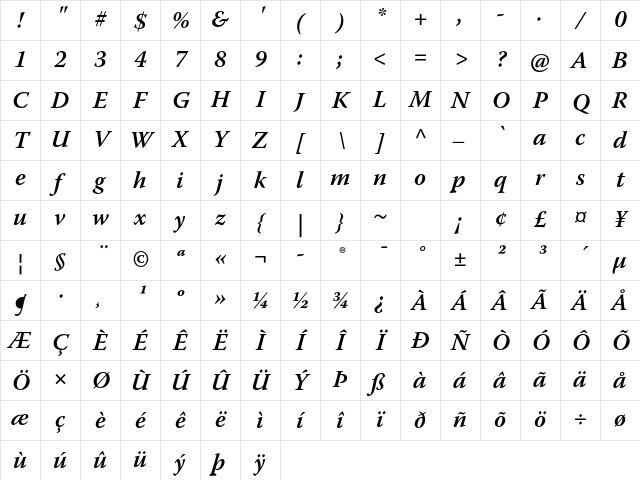
Warnock Pro Semibold Italic
Style: Semibold Italic
Complete Warnock Pro Semibold Italic glyph index. Displaying only characters natively supported by Warnock Pro Semibold Italic font.
Design Context for Warnock Pro
Warnock Pro is a composed and adaptable typeface that performs quietly and consistently across a wide range of design contexts. The slanted form adds forward momentum and visual energy. Its bold stroke weight gives it real presence on the page.